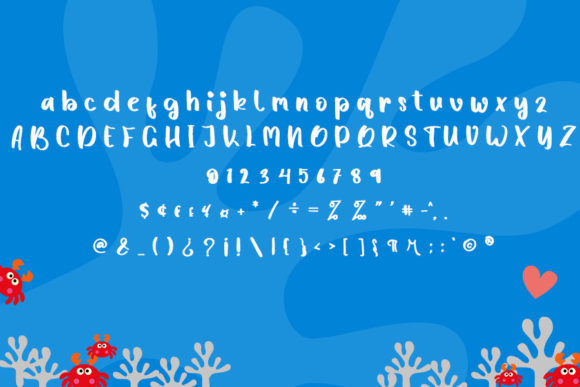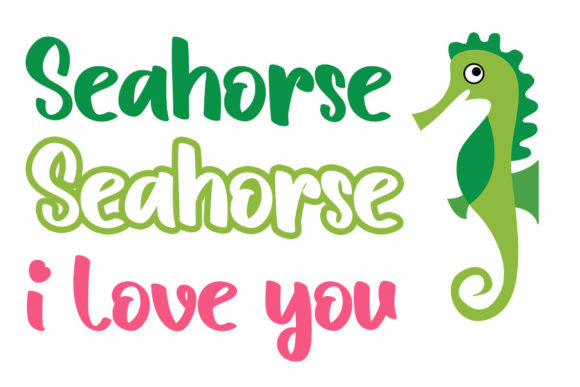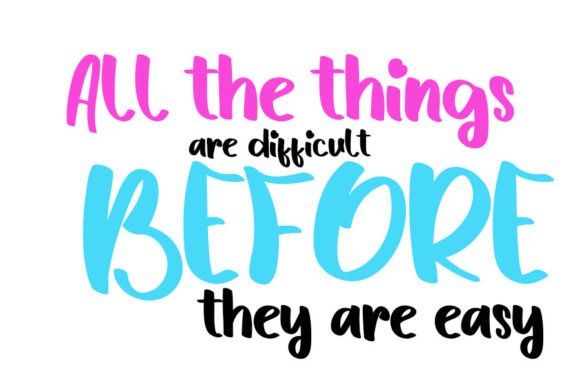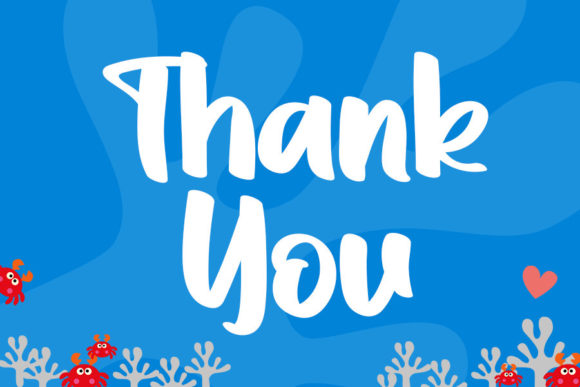
Dolphin Candy Font: The Perfect Playful Companion for Your Creative Projects
Are you on the hunt for a font that’s as fun and playful as a dolphin jumping out of the ocean? Look no further than the Dolphin Candy Font! This delightful handwritten font is designed to bring a splash of joy and whimsy to your informal projects. From birthday cards to apparel designs, children’s coloring books, and games, Dolphin Candy is the perfect companion to help you create engaging and visually appealing content.
What Makes Dolphin Candy Font So Special?
Dolphin Candy Font is a unique and charming handwritten font that’s sure to capture the hearts of designers, crafters, and anyone looking for a playful touch. Its distinctive characteristics include:
- Handwritten charm: Dolphin Candy Font boasts a lovely handwritten feel that’s perfect for creating personalized and informal content.
- Playful and fun: The font’s playful nature makes it ideal for projects that require a lighthearted and carefree approach.
- Versatile: Whether you’re working on a birthday card, apparel design, or children’s coloring book, Dolphin Candy Font adapts seamlessly to various design contexts.
Perfect Uses for Dolphin Candy Font
Dolphin Candy Font is incredibly versatile, making it suitable for a wide range of creative projects. Here are some ideas to get you started:
Birthday Cards
Create personalized and fun birthday cards that will make the recipient feel special. The playful nature of Dolphin Candy Font ensures that your card will stand out from the crowd.
Apparel Designs
Add a touch of whimsy to your apparel designs with Dolphin Candy Font. It’s perfect for creating fun and eye-catching t-shirts, hoodies, and more.
Children’s Coloring Books
Dolphin Candy Font is an excellent choice for children’s coloring books. Its playful nature will delight kids and inspire their creativity.
Games
Use Dolphin Candy Font to create engaging and interactive games that will captivate your audience. Its fun and playful vibe is sure to make your game stand out.
Tips for Using Dolphin Candy Font Effectively
To get the most out of Dolphin Candy Font, here are some tips to keep in mind:
- Pair it with complementary fonts: Combine Dolphin Candy Font with other fonts that complement its playful nature. A clean sans-serif font, for example, can provide a nice contrast.
- Experiment with colors: Don’t be afraid to try out different color schemes to match the tone of your project. Bright and bold colors work particularly well with Dolphin Candy Font.
- Keep it simple: While Dolphin Candy Font is playful, it’s essential to balance it with simple and clear design elements. Avoid overcrowding your design to ensure it remains easy to read and visually appealing.
Dolphin Candy Font is a delightful and playful handwritten font that’s perfect for informal projects. Its versatility, charm, and whimsical nature make it an excellent choice for designers, crafters, and anyone looking to add a touch of fun to their creative endeavors. With its wide range of uses and tips for effective implementation, Dolphin Candy Font is sure to become a favorite in your design toolkit.